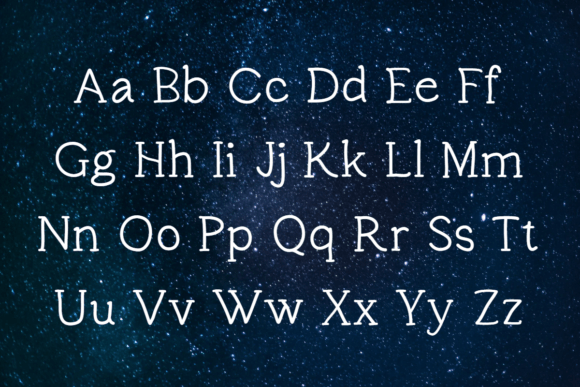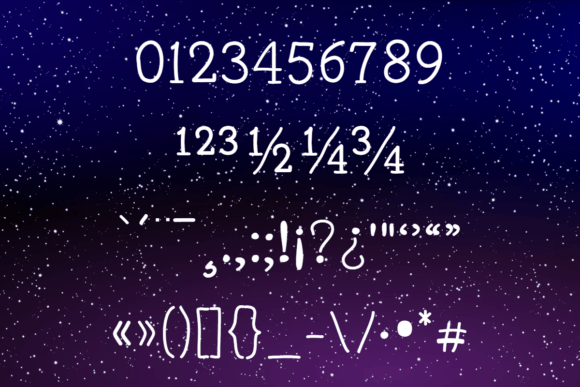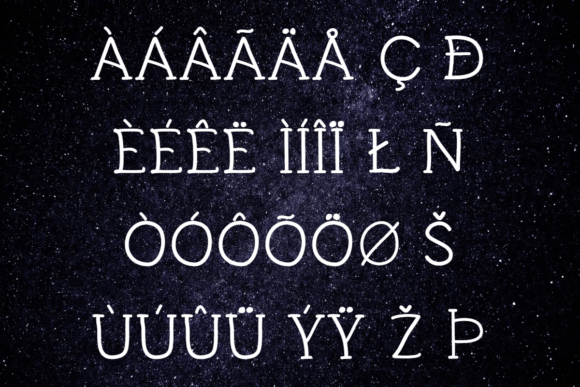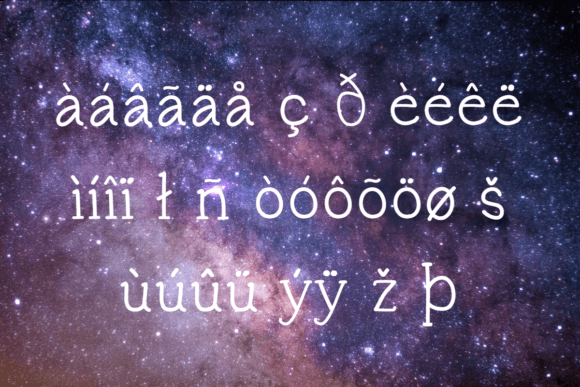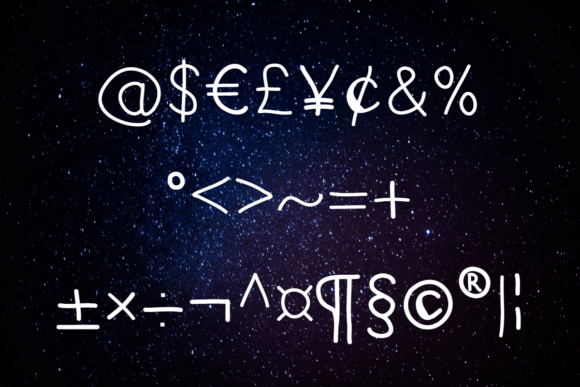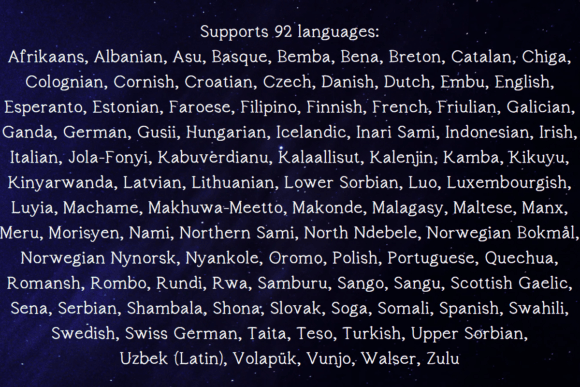
Achernar Font: Add a Touch of Whimsy to Your Designs
In the world of typography, fonts play a crucial role in conveying the tone and personality of a design. If you’re looking for a font that can add a touch of whimsy and personality to your projects, look no further than Achernar Font. This quirky handwritten font is designed to bring out the natural characteristics of your project, making it perfect for a wide range of applications.
What is Achernar Font?
Achernar Font is a unique and charming handwritten font that is made by handwriting. Its natural and effortless look makes it perfect for designers and crafters who want to add a personal touch to their work. The font’s quirky characteristics make it stand out from more traditional fonts, giving your designs a fresh and modern look.
Characteristics of Achernar Font
Achernar Font has several characteristics that make it a versatile and desirable font for designers and crafters. Some of its key features include:
- Handwritten look: Achernar Font has a natural, handwritten look that gives it a personal and unique feel.
- Quirky characteristics: The font’s quirky characteristics make it stand out from more traditional fonts, adding a touch of whimsy to your designs.
- Versatility: Achernar Font is perfect for a wide range of applications, from websites and svg designs to home decor, branding, blogs, logos, invitations, and more.
Uses of Achernar Font
Achernar Font is a versatile font that can be used in a variety of applications. Some of the ways you can use Achernar Font include:
- Websites: Add a personal touch to your website with Achernar Font. Its quirky characteristics make it perfect for blogs, portfolios, and e-commerce sites.
- SVG designs: Achernar Font is perfect for svg designs, including cutting files, vinyl decals, and more.
- Home decor: Use Achernar Font to add a personal touch to your home decor, including wall art, signs, and more.
- Branding: Achernar Font is perfect for branding, including logos, business cards, and more.
- Blogs: Add a personal touch to your blog with Achernar Font. Its quirky characteristics make it perfect for bloggers who want to stand out.
- Logos: Achernar Font is perfect for logos, including business logos, product logos, and more.
- Invitations: Use Achernar Font to create unique and personalized invitations for special occasions.
Why Choose Achernar Font?
There are many reasons why you should choose Achernar Font for your next project. Some of the benefits of using Achernar Font include:
- Unique look: Achernar Font has a unique and quirky look that will set your designs apart from the rest.
- Versatility: Achernar Font is perfect for a wide range of applications, making it a great addition to your font library.
- High-quality: Achernar Font is a high-quality font that is designed to produce crisp and clear results.
Achernar Font is a unique and versatile font that is perfect for designers and crafters who want to add a touch of whimsy to their work. Its quirky characteristics and handwritten look make it perfect for a wide range of applications, from websites and svg designs to home decor, branding, blogs, logos, invitations, and more. With its ease of use, high-quality design, and unique look, Achernar Font is a great addition to any font library.